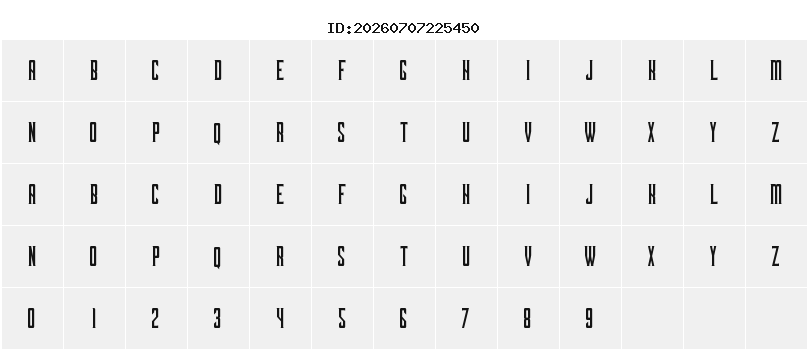
Dark Ministry Preview
• Font Name: Dark Ministry
• Full Font Name: Dark Ministry
• Version: Version 1.00 December 27, 2013, initial release
About Dark Ministry.ttf
Dark Ministry.ttf is a modern, elegant sans-serif font designed for ultimate readability and visual harmony. Perfect for branding, headlines, web design, and print materials.